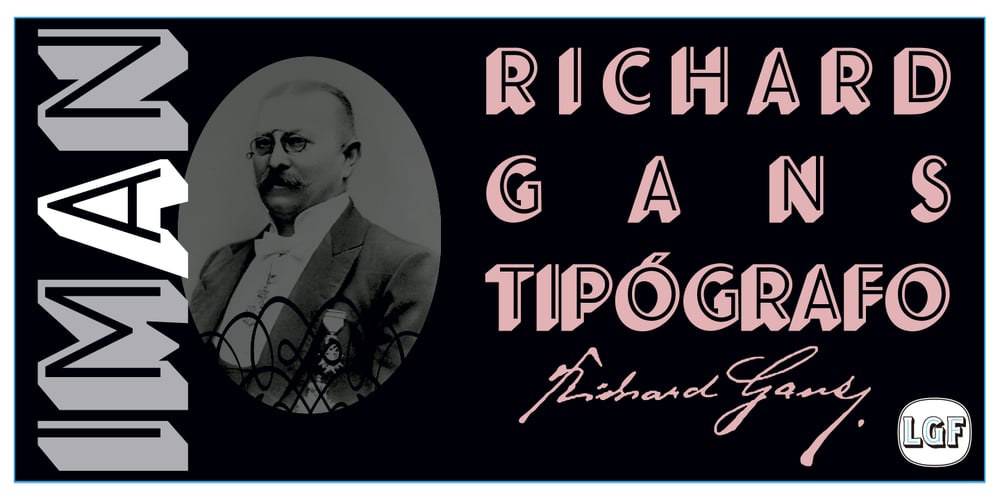
IMAN RG Font Family was designed by Manuel Lage and published by LGF Fonts. IMAN RG contains 1 styles and family package options. This type of Richard Gans, has always seemed very striking, despite having the complexity of the sources extrusion, has its own personality, and readability unusual for this type of letters. Use it for composing posters, programs or logos was very common at the time. My father, Antonio Lage Parapar, typographer by profession, who composed the texts, which not only had it for profession, but he liked to do, always he spoke of sources and decorative elements of the type foundry Richard Gans, as well as other foundries, especially those that required the mender of them, exercised creator, many of these types they have already been recovered by professionals and companies with excellent results. I’ve been surrounded by these movable type, and the occasional catalog unfortunately lost. One of those guys that has always struck me visually speaking was the type IMAN Richard Gans, the typographer and more of German origin arrived in Spain, back in 1874, also a pioneer. This work to revive the type mentioned, as well as create non existing glyphs between documents and parts I’ve been finding, is and has been a personal pleasure all I want serve as a tribute to my father (of aopodo curiously “Richard”), the only sadness it has not been completed. Richard Gans, arrived in Spain in 1874 as a representative of several European factories. then liaised with journalistic and publishing companies, which led him knowledge required of the first sector art. In 1878 he created a center importer gadgets graphic arts and three years later he created his own type foundry. The first rotary newspaper ABC, very famous and the most advanced of the time, the brand manufactured Richard Gans.